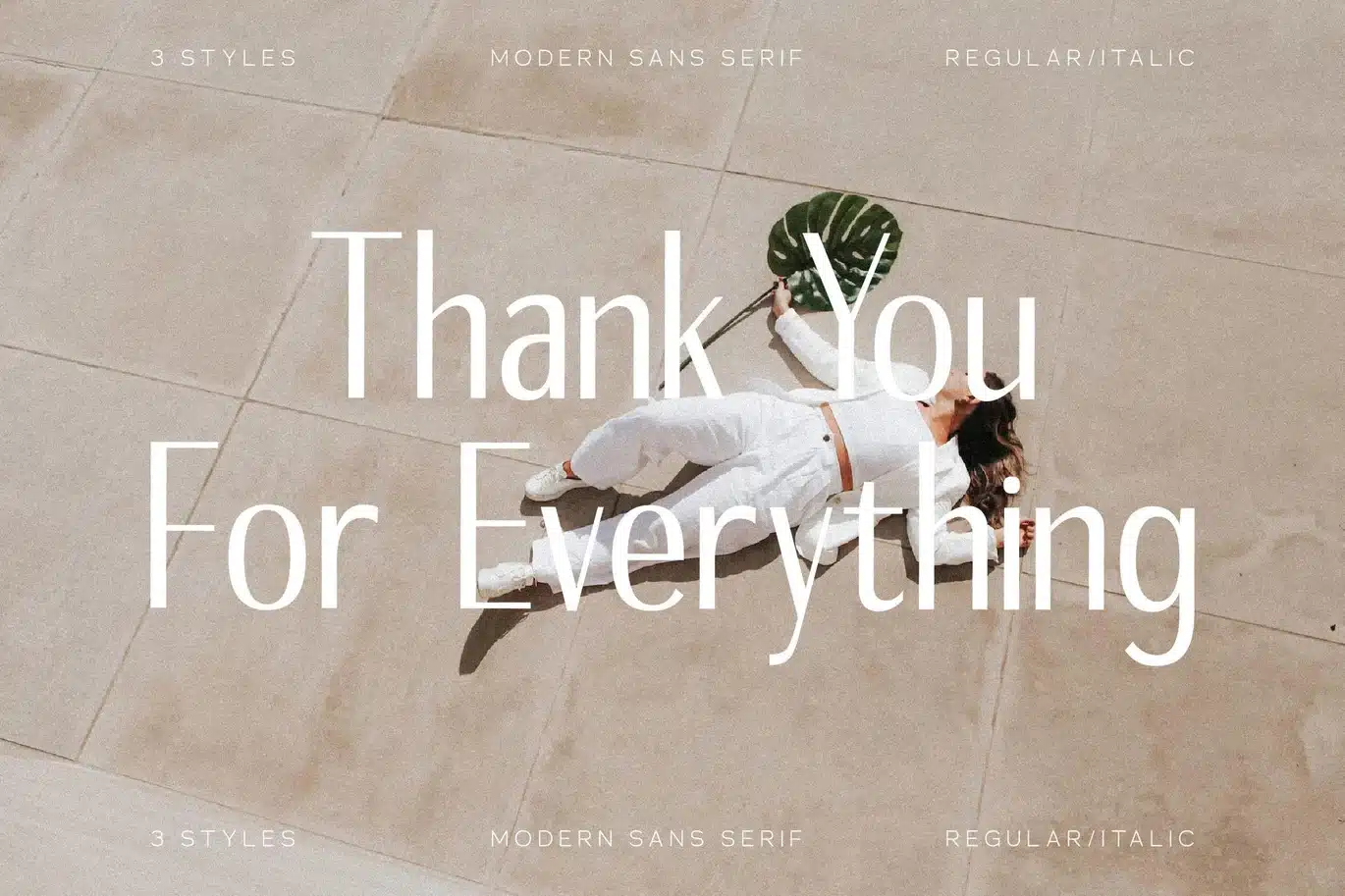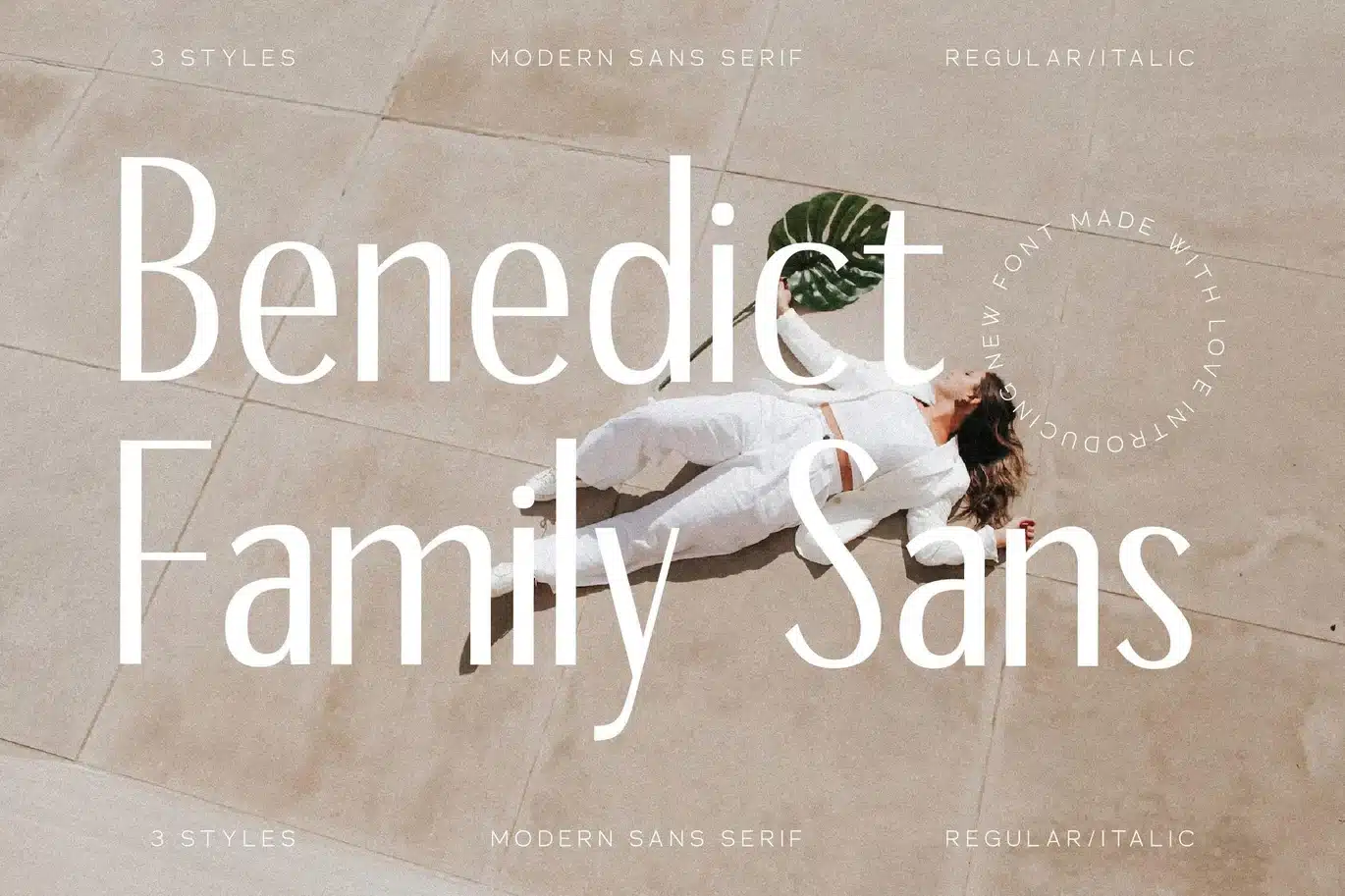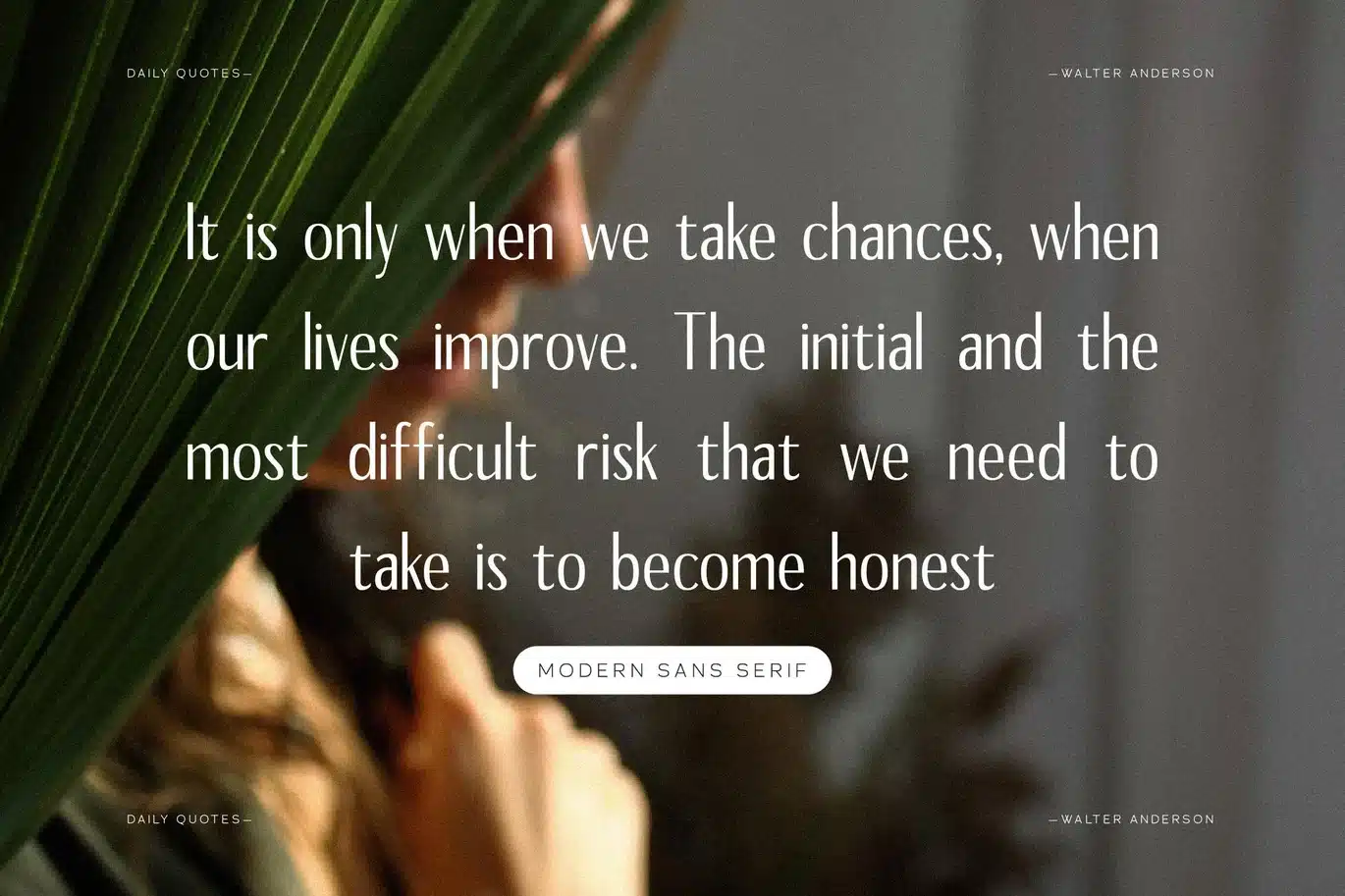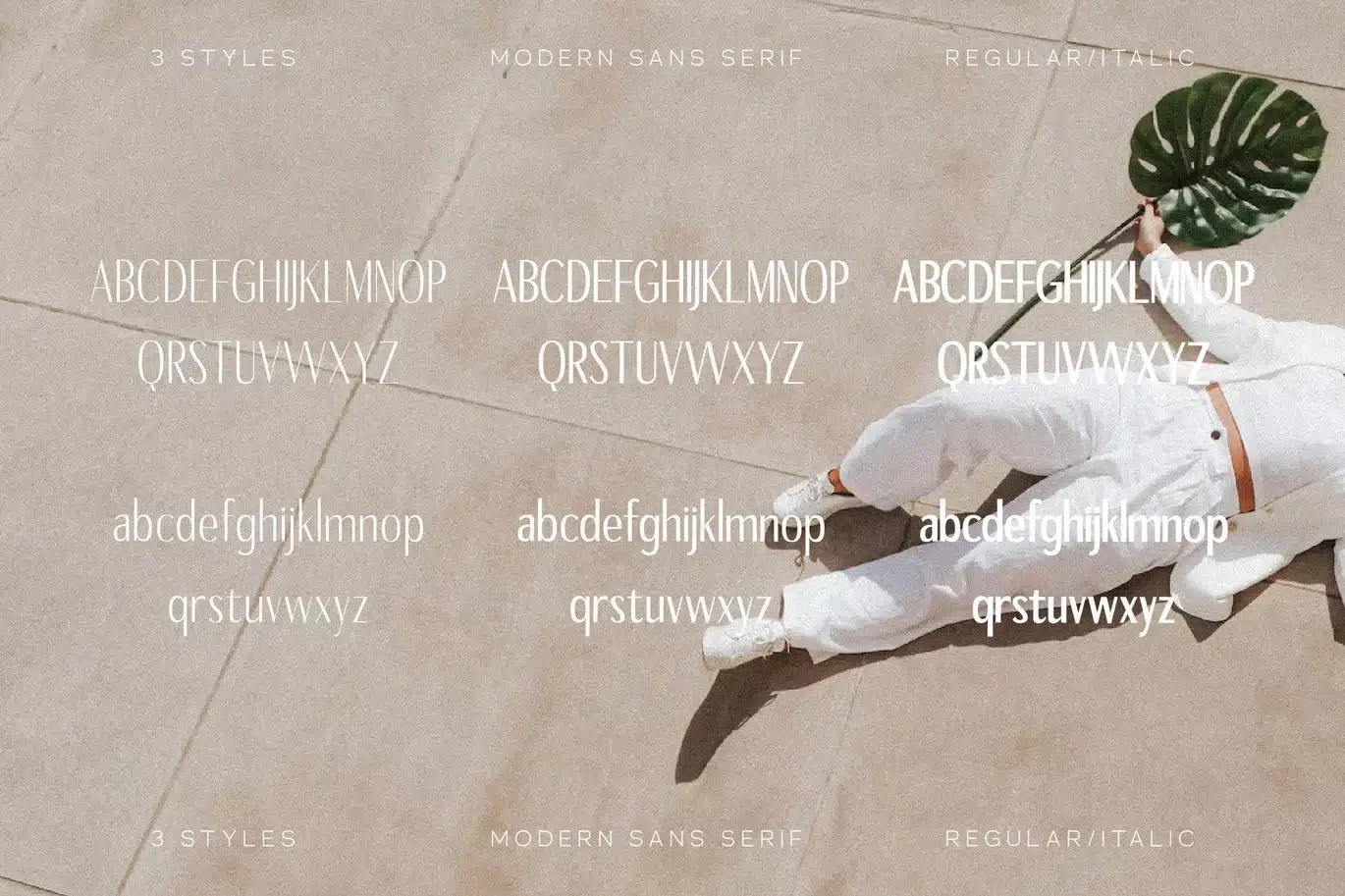
Benedict Sans Modern Sans Serif Font
Hi ladies & gentlemen, this is one of our fonts suitable to complement your digital and printed creative products.